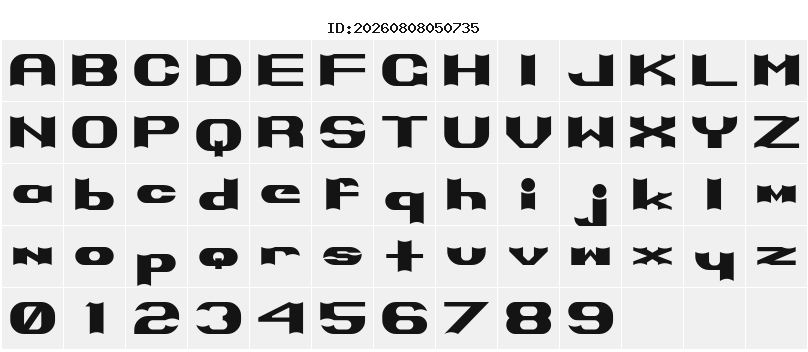
Primo Preview
• Font Name: Primo
• Designer: Rich Gast
• Manufacturer: GreyWolf WebWorks
About Primo.ttf
Primo.ttf is a modern, elegant sans-serif font designed for ultimate readability and visual harmony. Perfect for branding, headlines, web design, and print materials.